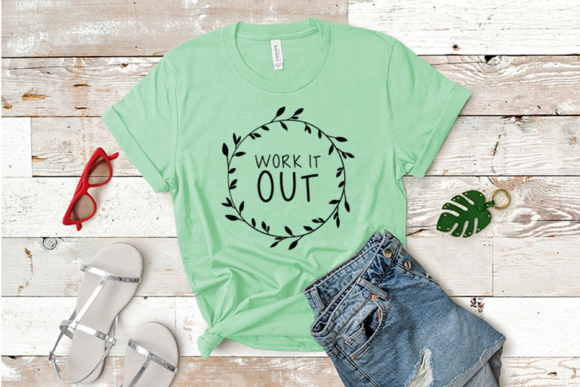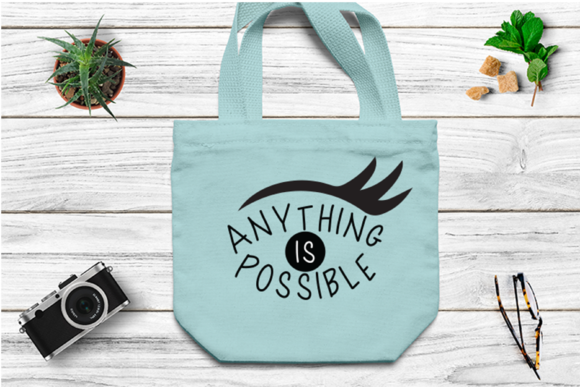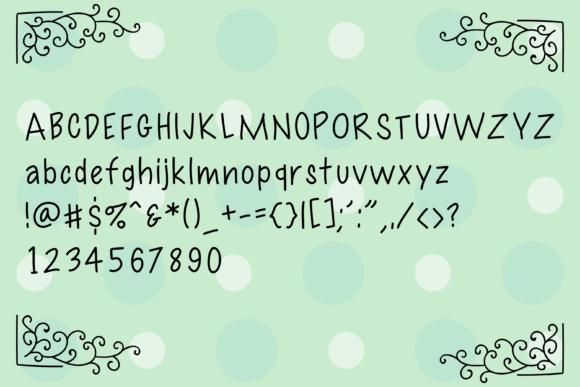
Discover the Charm of Eventually Font: A Modern Display Font for Every Occasion
In the world of typography, a good font can make all the difference in the success of a design project. Whether you’re a seasoned designer or a crafty DIY enthusiast, finding the right font can be a daunting task. That’s why we’re excited to introduce you to Eventually Font, a modern display font that’s quickly becoming a favorite among designers and crafters alike.
What Makes Eventually Font So Special?
Eventually is a carefully handcrafted font that’s designed to exude a sense of casual charm. Its down-to-earth feel makes it incredibly readable, even in a variety of challenging contexts. Whether you’re using it as a standalone headline or overlaying it on a busy background, Eventually Font is sure to shine.
One of the key features that sets Eventually Font apart is its versatility. This font is designed to be adaptable, working beautifully in a wide range of applications. From bold and eye-catching headlines to more subtle and sophisticated body text, Eventually Font is the perfect choice for any design project.
The Benefits of Using Eventually Font
So why choose Eventually Font for your next design project? Here are just a few of the benefits you can expect:
- Readability: Eventually Font is designed to be easy to read, even in smaller sizes. This makes it perfect for body text, captions, and other applications where legibility is key.
- Versatility: Whether you’re designing a bold and eye-catching headline or a more subtle and sophisticated label, Eventually Font is the perfect choice.
- Flexibility: Eventually Font works beautifully in a wide range of contexts, from simple and clean designs to more complex and busy backgrounds.
- Uniqueness: With its carefully handcrafted design, Eventually Font is sure to stand out from the crowd. Your designs will be instantly recognizable and memorable.
Who is Eventually Font For?
Eventually Font is perfect for a wide range of designers and crafters, including:
- Graphic Designers: Whether you’re working on a logo, brochure, or website, Eventually Font is a great choice for any design project.
- Digital Artists: Add a touch of personality to your digital art with Eventually Font, perfect for use in illustrations, comics, and more.
- Crafters: From scrapbooking to card making, Eventually Font is a great choice for any craft project that requires a personal touch.
- Marketeers: Use Eventually Font to add a touch of sophistication and elegance to your marketing materials, from flyers to billboards.
How to Use Eventually Font
Using Eventually Font is easy. Here are a few tips to get you started:
- Experiment with Different Sizes: Eventually Font works beautifully in a wide range of sizes, from small and subtle to large and bold.
- Play with Color: Eventually Font looks great in a variety of colors, from bright and bold to subtle and muted.
- Mix and Match: Don’t be afraid to combine Eventually Font with other fonts to create a unique and eye-catching design.
Eventually Font is a modern display font that’s quickly becoming a favorite among designers and crafters. Its casual charm, readability, and versatility make it the perfect choice for any design project. Whether you’re a seasoned designer or just starting out, Eventually Font is sure to become a staple in your font collection. So why wait? Download Eventually Font today and start creating stunning designs that will leave a lasting impression.